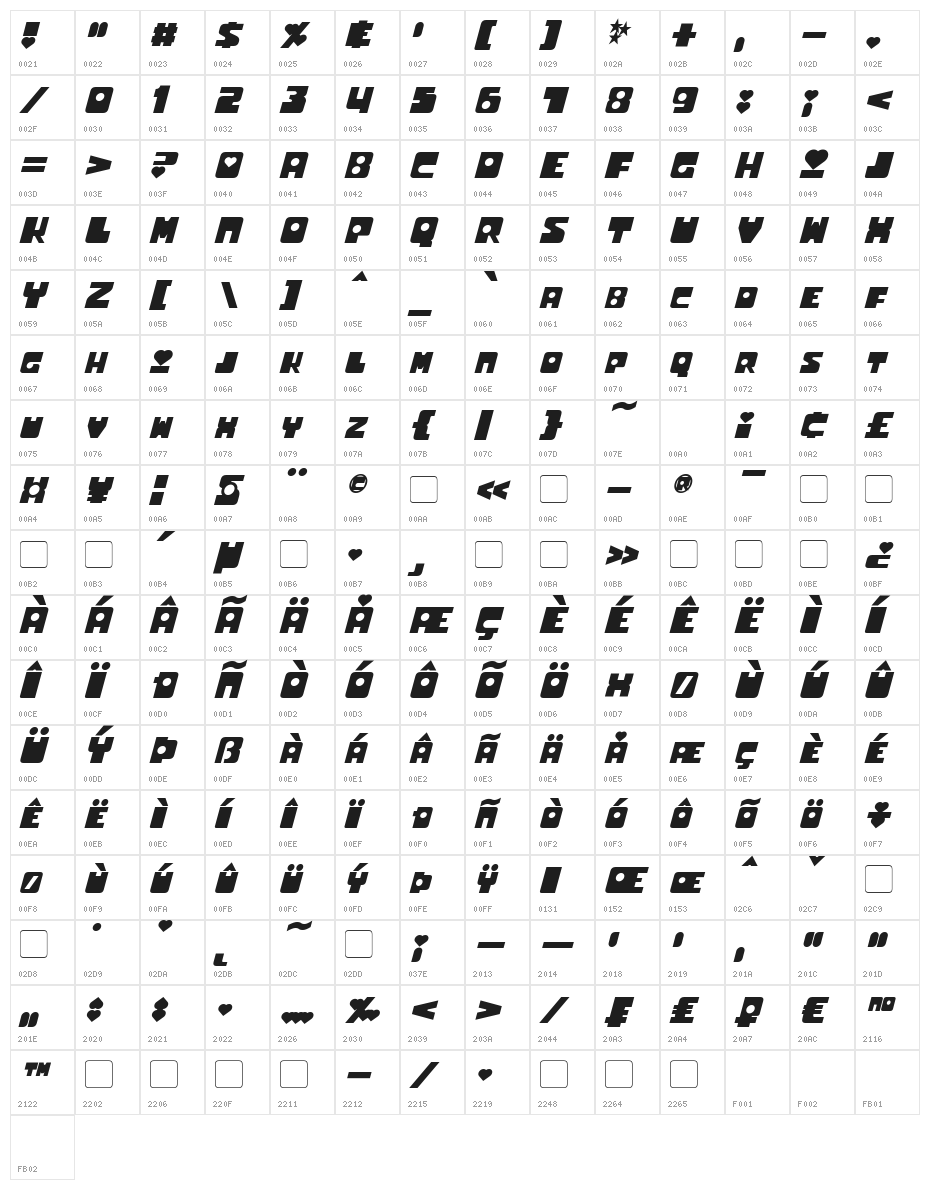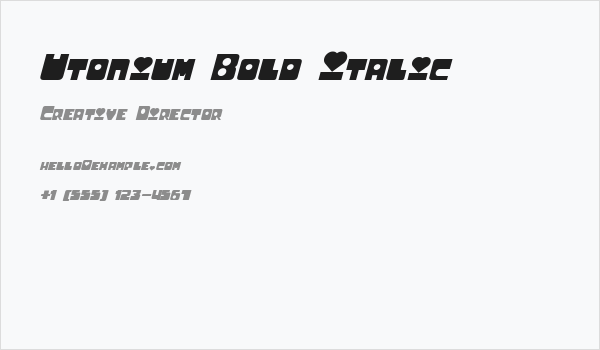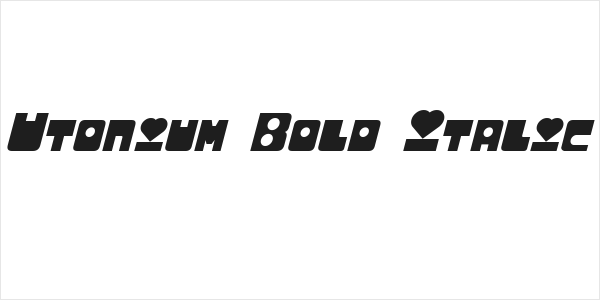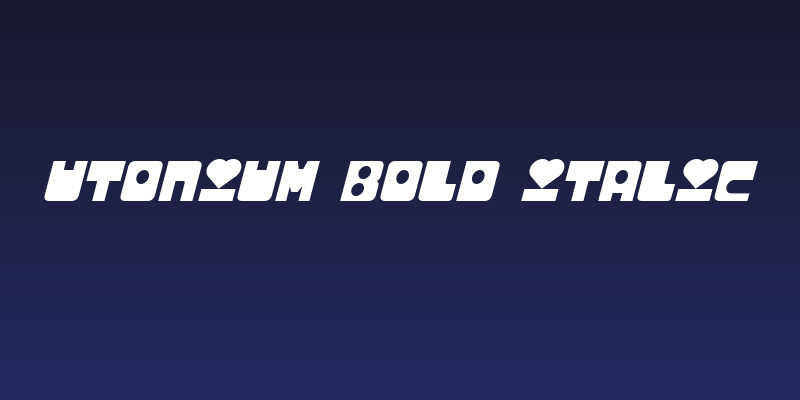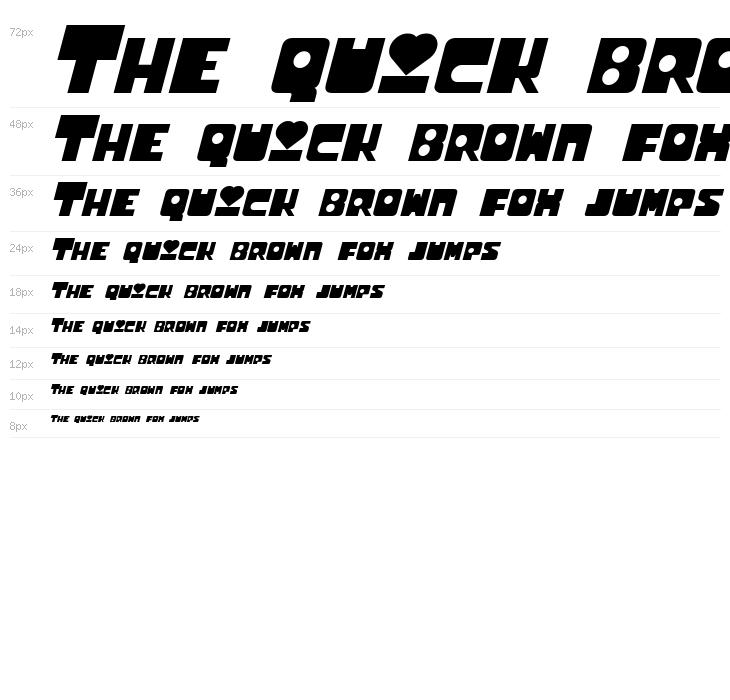
Utonium Bold Italic Font
Utonium Bold Italic Description
This font features a bold and italicized style with a distinctively modern and playful appearance. The characters are heavily stylized with geometric shapes and sharp angles, creating a dynamic and energetic look. The uppercase letters are particularly striking, with some incorporating unique design elements such as heart shapes. The numbers and special characters maintain the bold and angular theme, ensuring consistency across the entire typeface. This font is designed to capture attention and convey a sense of fun and creativity.
Proposed ProjectsIdeal for use in branding, posters, and any design project that requires a bold, eye-catching typeface with a playful twist.